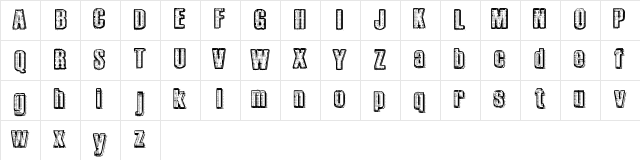
RvD_PRINTPLATE Regular
RvD_PRINTPLATE is a composed and adaptable typeface that performs quietly and consistently across a wide range of design contexts.